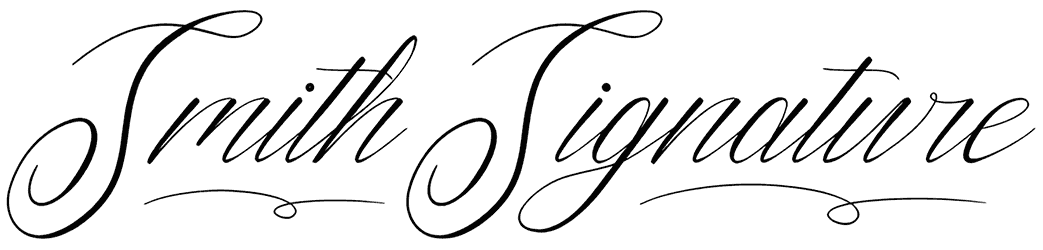
Smith Signature Font
Make your design words dance on smooth twists with Smith Signature and keep all eyes on your text. As a calligraphy font with a deluxe vibe, Smith Signature will make your project top-notch even though it doesn’t include numerals and punctuation. Just start to use it for fashion designs, handwritten quotes, invitation cards, or any text you love, and overjoy the crowd.